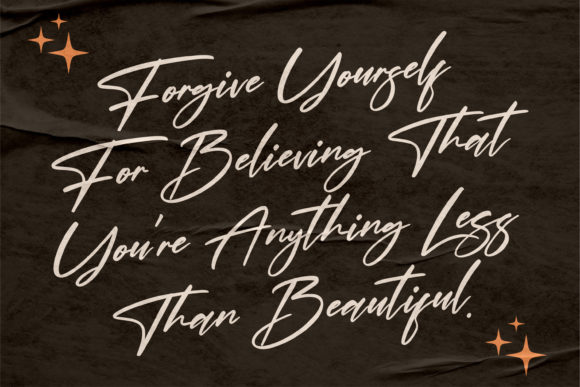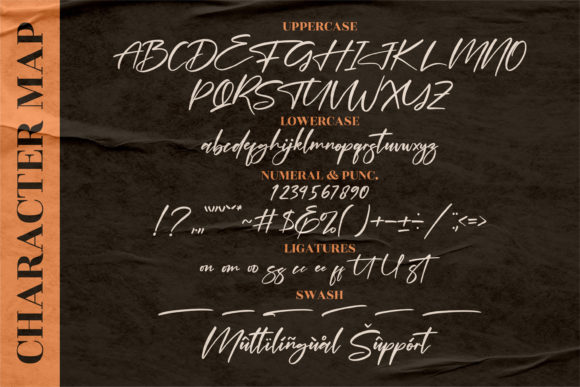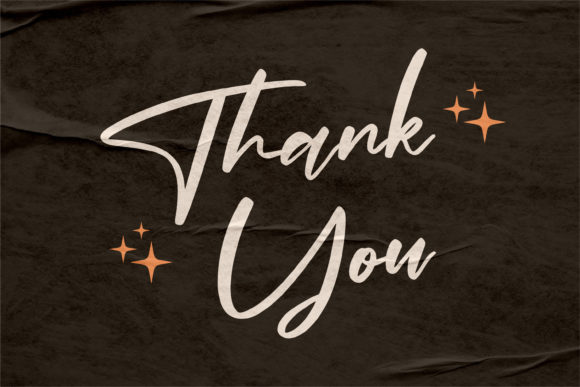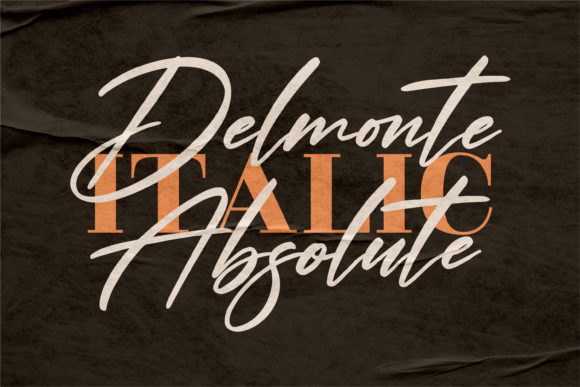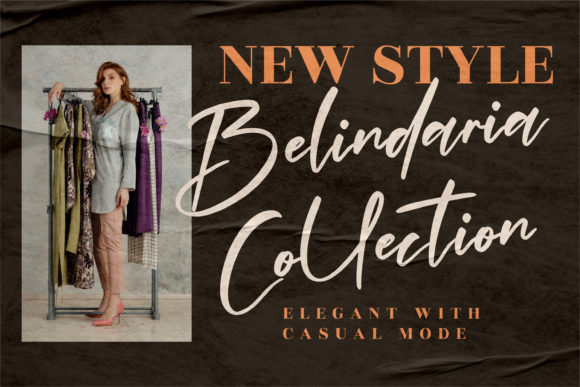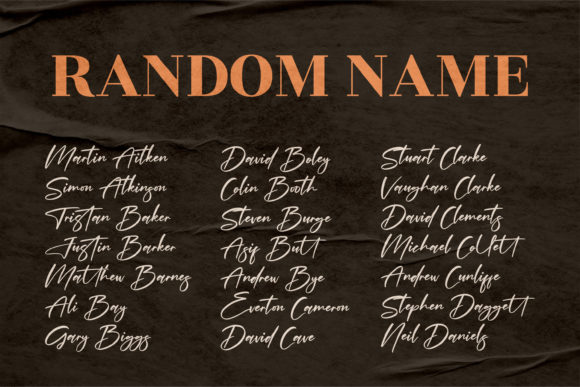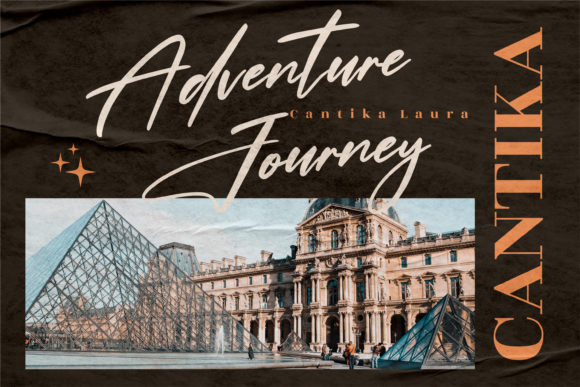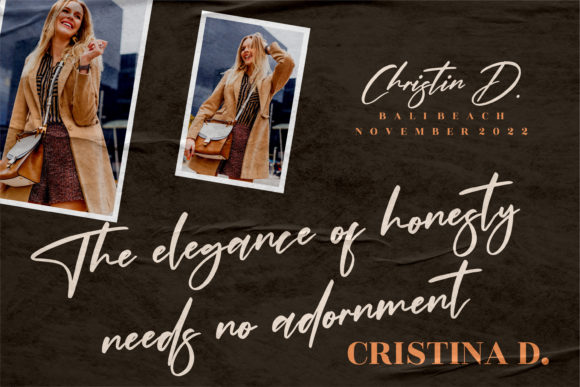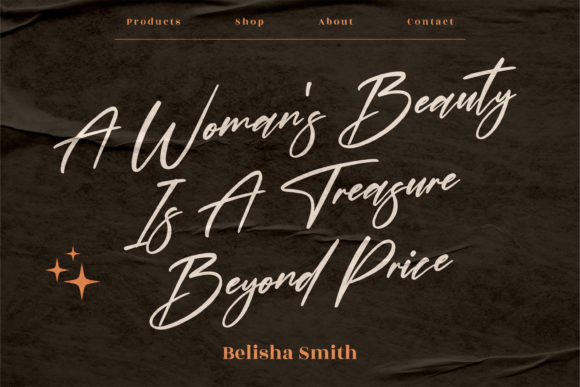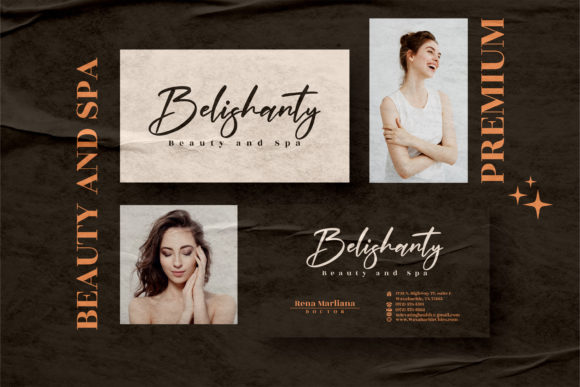
Delmonte Absolute Font
About Delmonte Absolute Font
Delmonte Absolute is a relaxed, adaptable and stylish script font. It has a classy, elegant and modern look that can be used for logos, branding, invitations, stationery, wedding designs, social media posts, and much more!